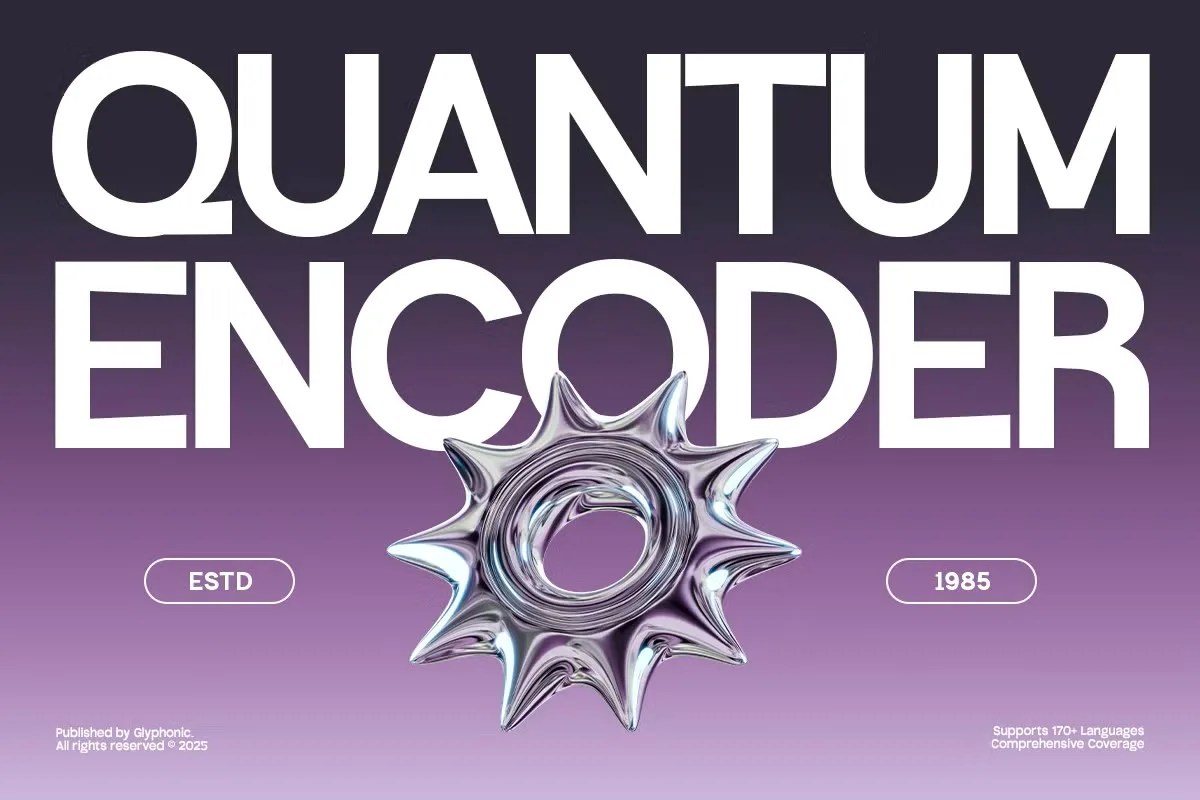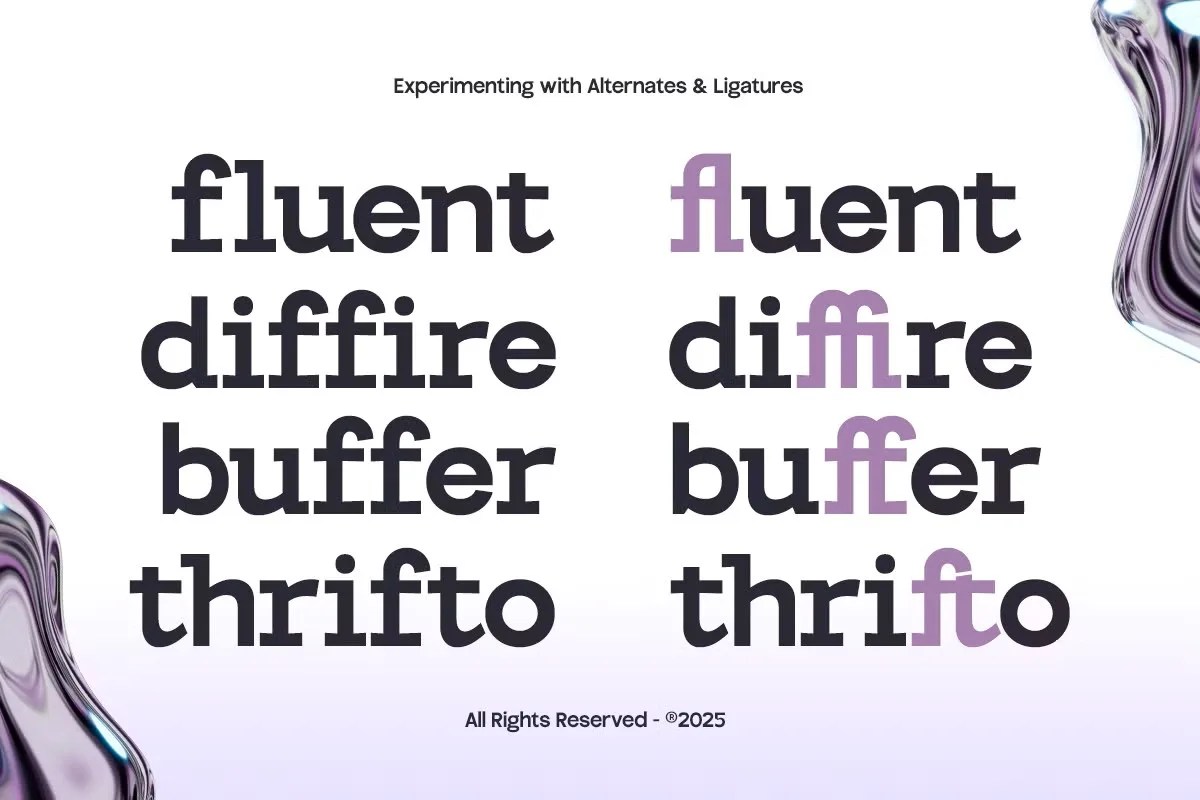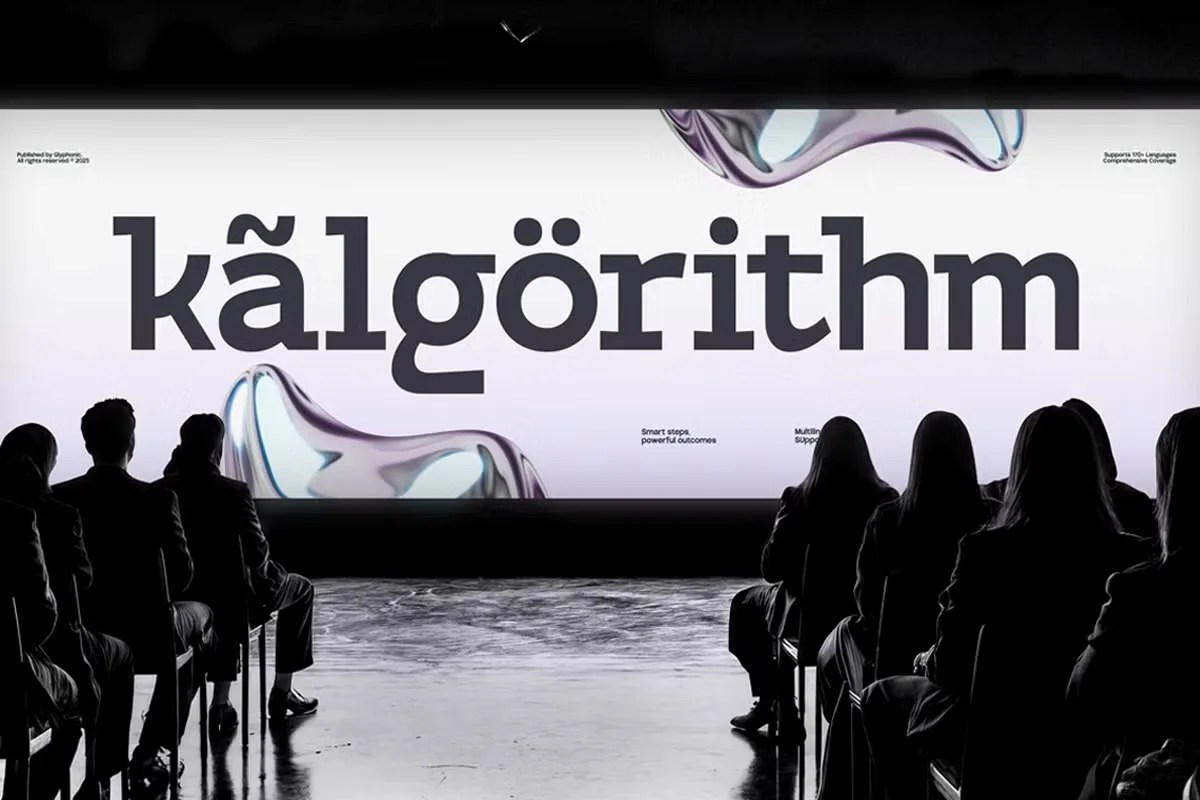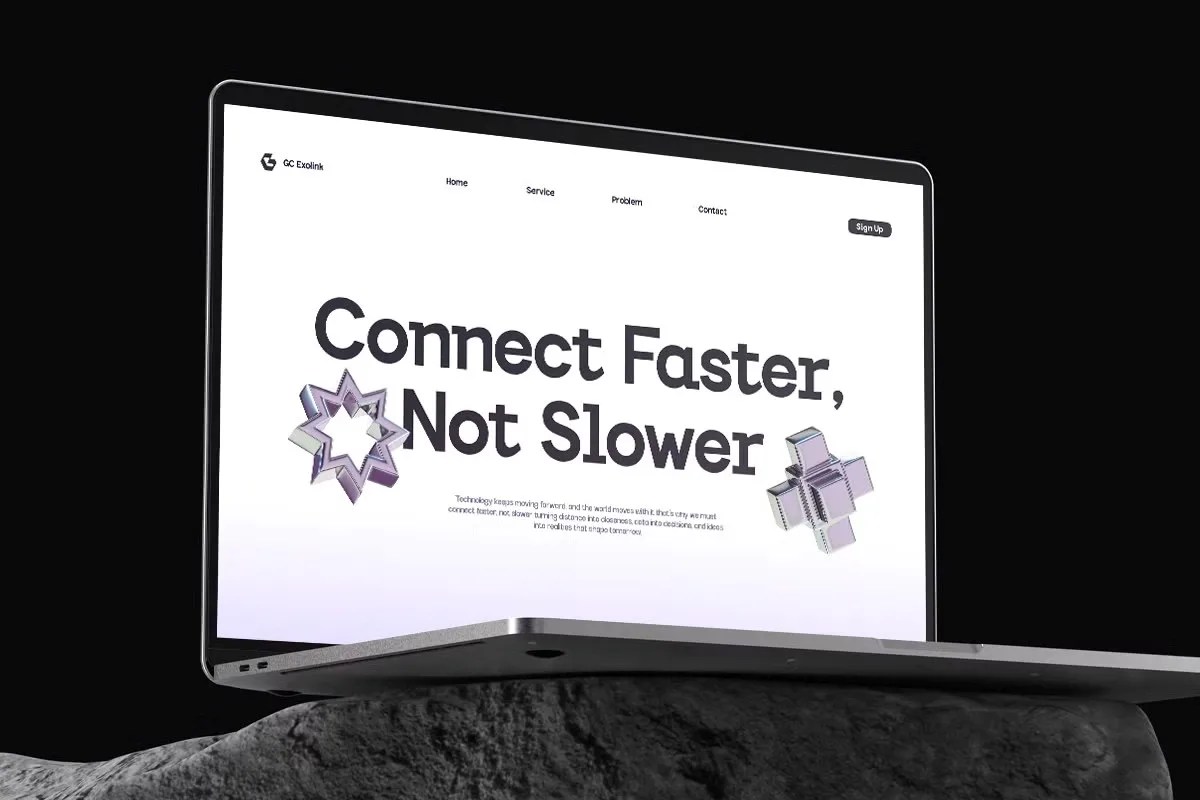
Exolink by Glyphonic. This is a clean and efficient modern tech font that draws inspiration from the worlds of science fiction and digital networks. The typeface features precise letterforms that communicate clarity and innovation. Exolink is the perfect choice for projects that need to feel forward-thinking and intelligently designed. It equips your text with a sharp, cutting-edge voice.
This font gives power to innovative branding and design. Specifically, it is a superb choice for a technology company’s logo or a new app’s user interface. It helps establish a credible, high-tech identity right away. Furthermore, this modern tech font is perfect for creating titles for science-fiction media or posters for tech conferences. Designers will find it invaluable for data visualization dashboards and futuristic heads-up displays (HUDs), where clarity is absolutely essential.
• Clean and futuristic sans serif style
• Features precise, geometric letterforms
• Ideal for tech, sci-fi, and UI design
• Communicates innovation and connectivity
Exolink